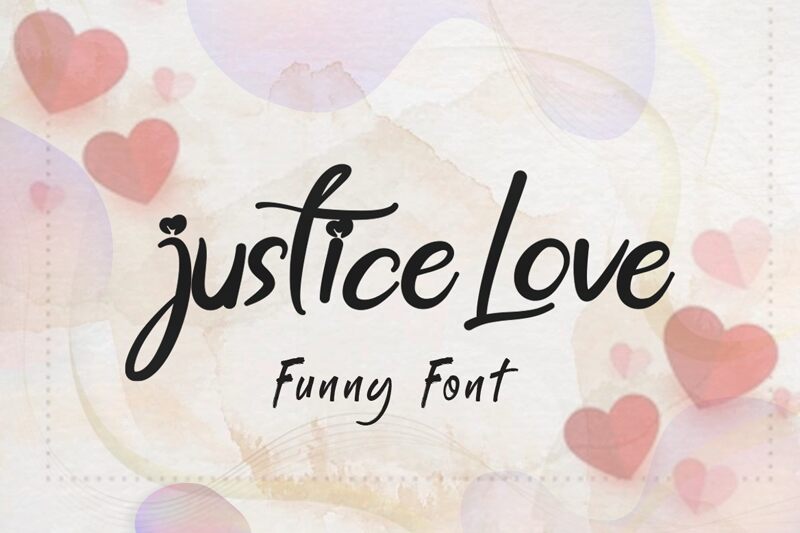
justice Love
Justice Love is a stunning handwritten font created by Winarko. Its semi-light weight gives it an elegant and delicate appearance, while its unique character adds a touch of creativity to any project. This versatile font is suitable for a variety of projects, from wedding invitations and greeting cards to logos and branding materials. Justice Love's flowing strokes and handcrafted feel make it the perfect choice for any design that requires a personal touch. Let this beautiful semi-light font bring your ideas to life and add a touch of warmth and authenticity to your designs!